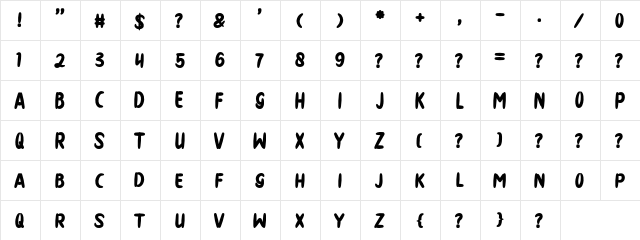
THE DISTRO art design
Design Context for THE DISTRO Typeface
THE DISTRO is a composed and adaptable typeface that performs quietly and consistently across a wide range of design contexts.